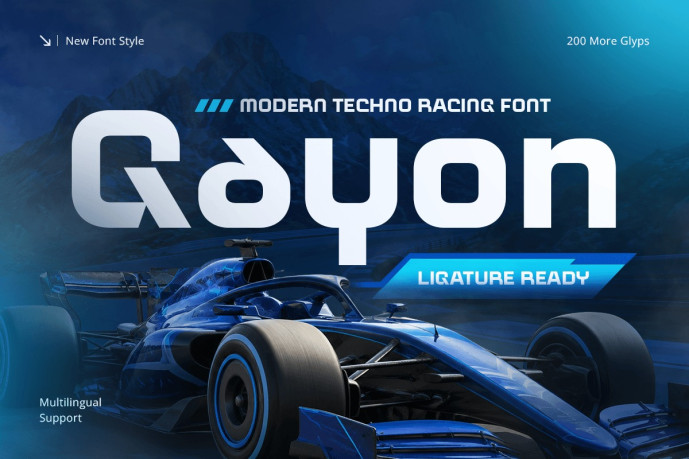
Gayon – Modern Techno Racing Font
Gayon – Modern Techno Racing Font is a futuristic display font designed for motorsport branding, racing logos, automotive graphics, esports identities, and technology-driven visual communication. Inspired by high-speed engineering, digital innovation, and modern racing culture, Gayon combines bold techno aesthetics with dynamic typography to create impactful and memorable brand experiences.
Featuring sharp angular letterforms, futuristic geometric construction, and racing-inspired details, Gayon delivers a powerful visual identity that communicates speed, precision, and innovation. Its distinctive design is optimized for logos, display headlines, branding systems, and promotional graphics, making it an ideal choice for projects that demand a bold competitive presence.
Whether you’re designing a motorsport logo, developing an automotive brand, building an esports identity, or creating technology-focused marketing materials, Gayon provides the high-performance typography needed to elevate your creative projects.
Gayon Font Features
Character Set: Uppercase, lowercase, numbers, symbols, and punctuation
Modern techno letterforms optimized for racing logos and performance branding
OpenType features ready to enhance your design needs
Gayon is Perfect For
Motorsport and racing branding
Automotive logo and visual identity design
Esports and gaming branding
Technology startup branding
Racing event promotions and advertising
Website headers and digital brand assets
Dynamic display typography
High-performance visual identity systems
Whether you’re creating a motorsport logo, developing an automotive brand, designing gaming and esports graphics, or building a technology-focused visual identity, Gayon delivers the speed, innovation, and futuristic character of a modern techno racing font built for bold branding.